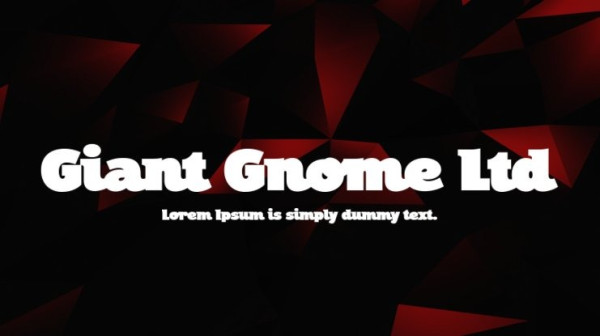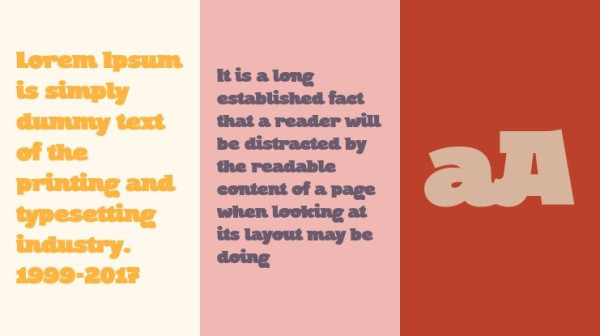
Giant Gnome Font, An experiment with very tight spaces, to create a compact, block text. The limited version, revised.
Giant Gnome Font
| Designer Name: | Levi Szekeres |
| Classification: | Display Fonts, Various Fonts |
Giant Gnome Regular Ltd